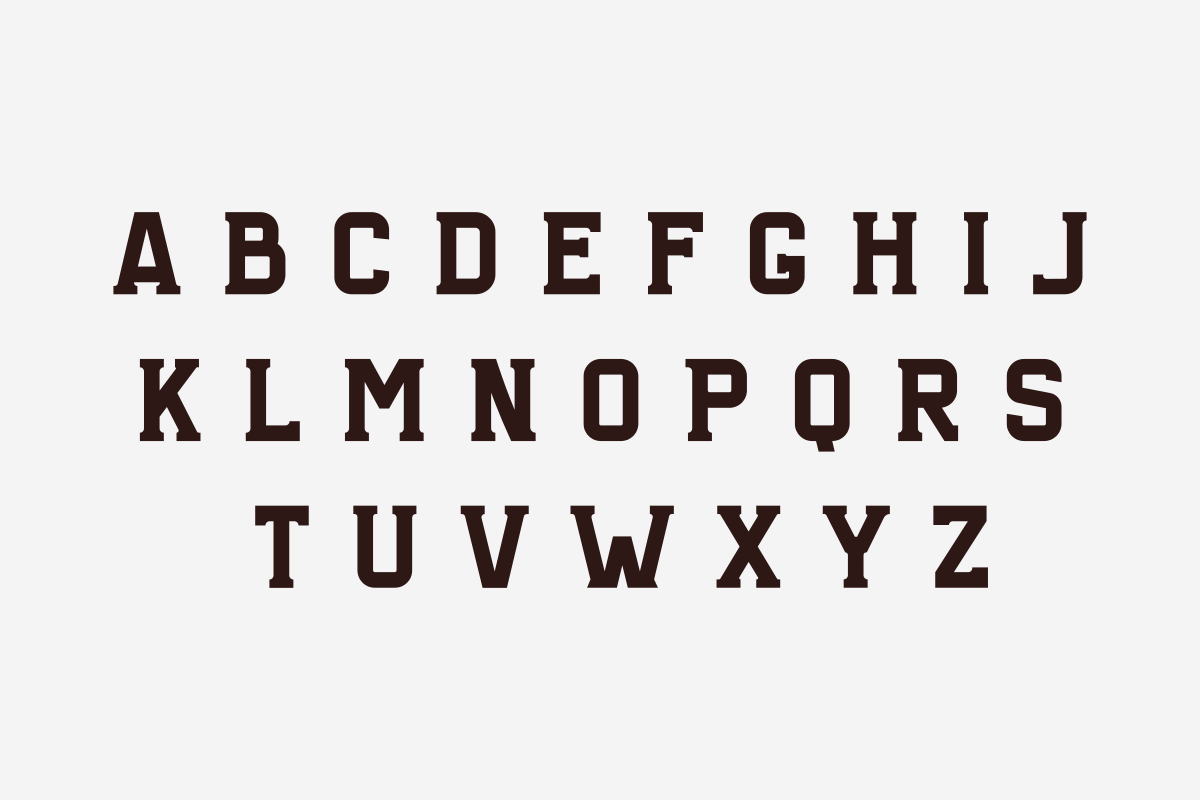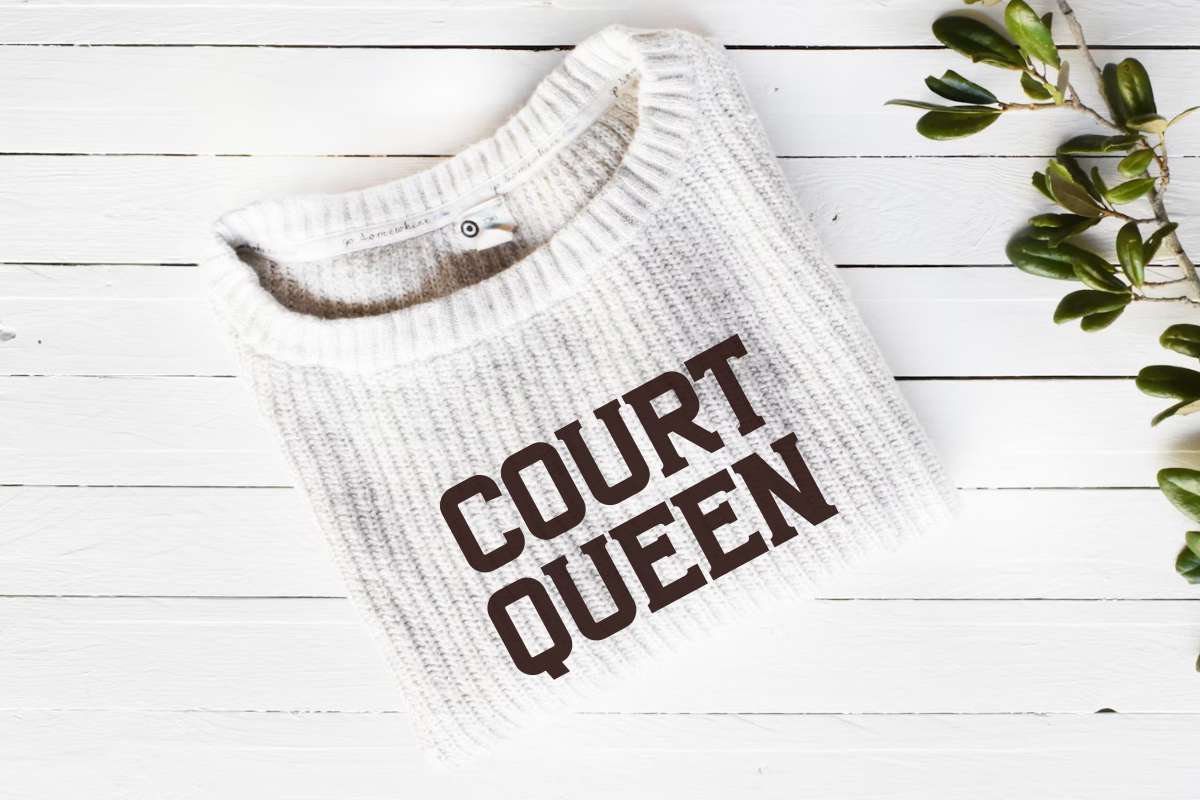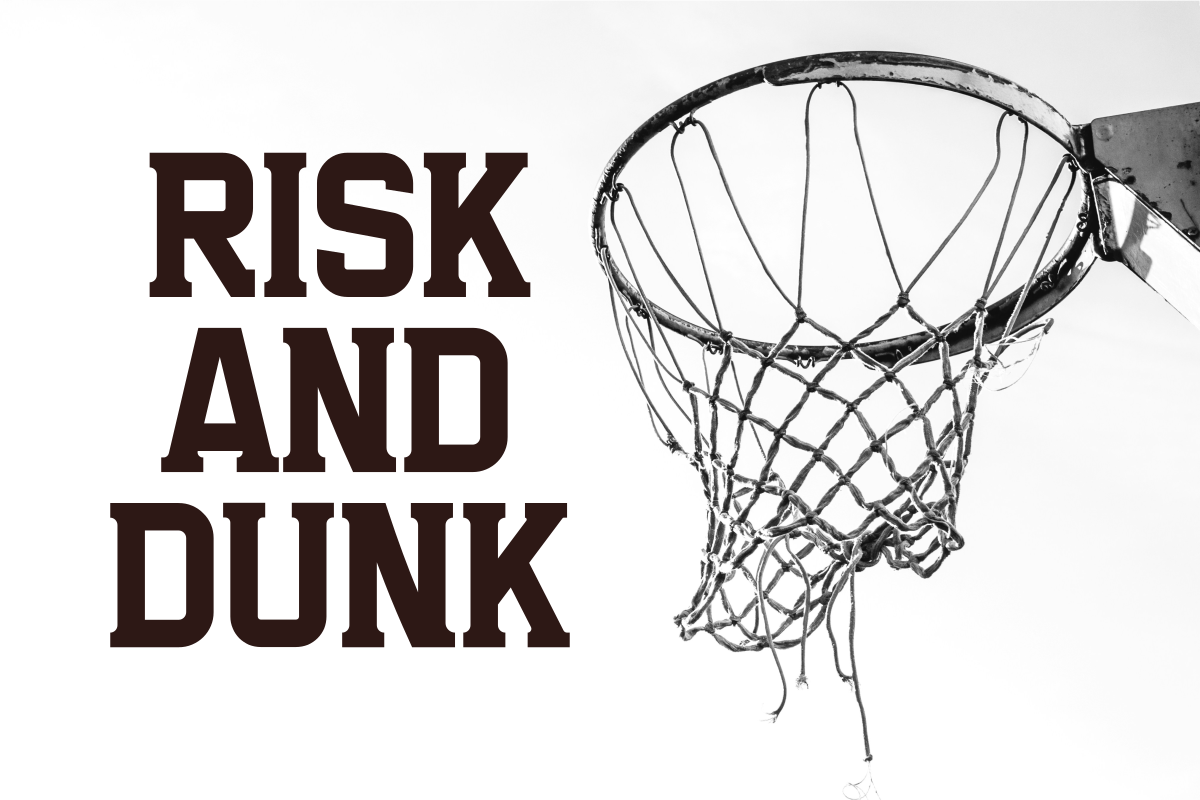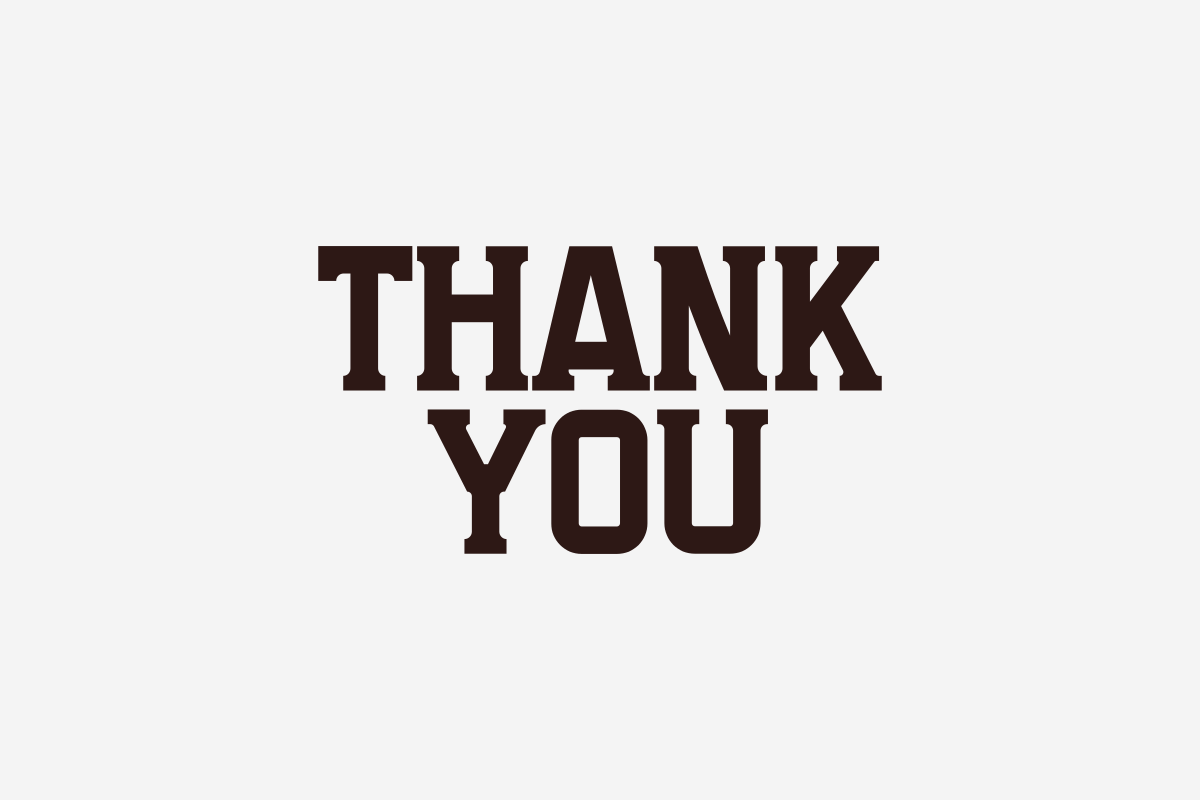
Varsity Sports - Modern Slab Serif
Varsity Sports is a powerful and bold slab serif font meticulously crafted to capture the essence of competitive athletics and university spirit. This authoritative sports typeface features strong blocky serifs and clean, masculine lines, making it an ideal choice for team branding, university-style apparel, jersey numbers, stadium graphics, and high-impact headlines. Its robust and timeless silhouette ensures it commands attention in any athletic context, providing a perfect blend of traditional varsity charm and modern performance aesthetics. Elevate your sports projects with the competitive edge of Varsity Sports!